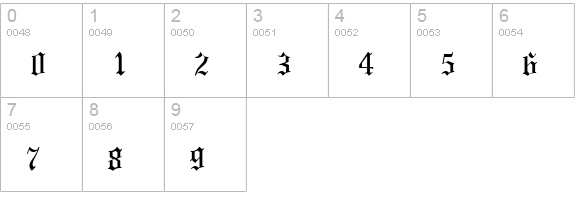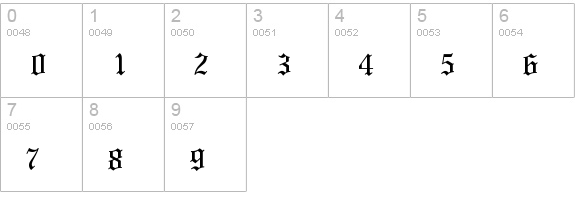
Marriage Font Details
The Marriage font is a stunning expression of elegance and timeless beauty. This exquisite typeface is perfect for adding a touch of sophistication and charm to any design project. With its delicate, flowing lines and graceful curves, Marriage font captures the essence of romance and celebration. What makes the Marriage font even more desirable is that it is completely free to download at FontsMarket.com. This means that you can effortlessly bring a touch of class to your invitations, wedding stationery, or any other creative endeavor without spending a dime. Designed with attention to detail and meticulous craftsmanship, the Marriage font exudes a sense of refinement and luxury. Its versatile nature allows it to be used in a variety of contexts, from formal wedding invitations to elegant branding materials. Whether you're designing a wedding album, greeting cards, or a logo for a high-end event, the Marriage font will elevate your work to new heights. With its wide range of characters, including uppercase and lowercase letters, numbers, and punctuation marks, the Marriage font provides endless possibilities for creating stunning and personalized designs. Its smooth and legible letterforms ensure that your message is conveyed with clarity and style. By choosing the Marriage font, you are not only embracing elegance and sophistication but also embracing the spirit of generosity. Thanks to FontsMarket.com, this exquisite font is freely available for download, allowing you to bring a touch of luxurious beauty to your projects without breaking the bank. So, whether you're a professional designer or a budding enthusiast, the Marriage font is a must-have in your typographic arsenal. Download it today from FontsMarket.com and let the magic of this font transform your creations into works of art that will captivate and inspire.